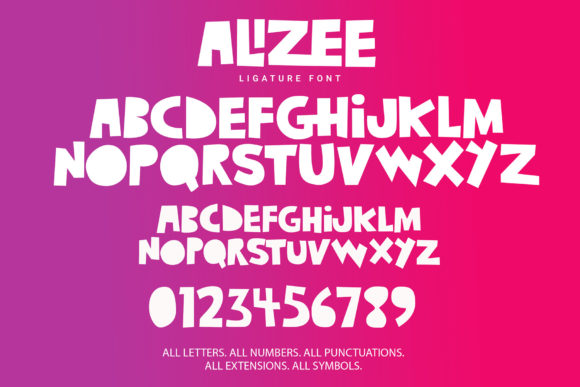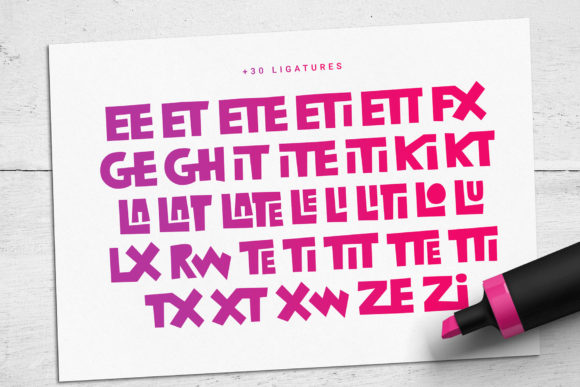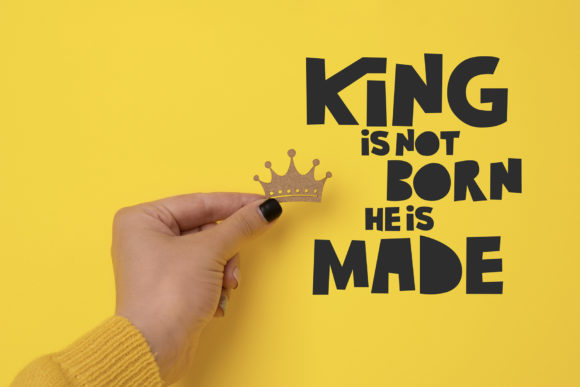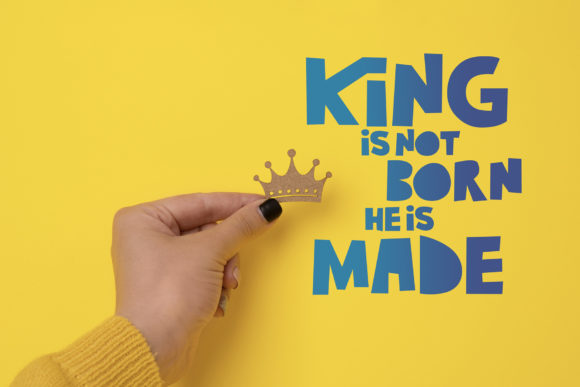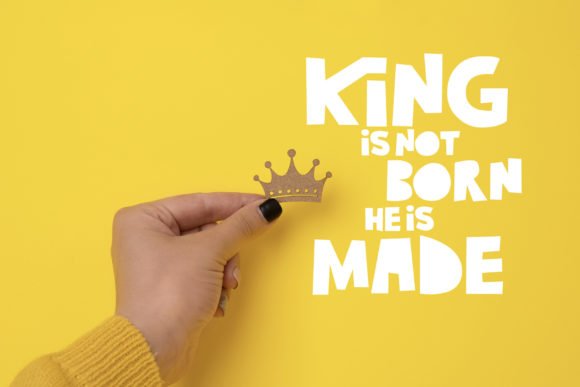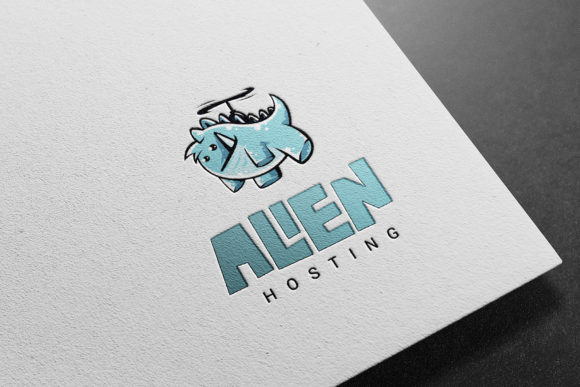
Introducing Alizee Font: The Ultimate Modern Display Font for Creative Designs
Are you on the hunt for a font that can add a touch of modernity and playfulness to your designs? Look no further than Alizee Font! This cool and modern display font family is perfect for creating cheerful logotypes, titles, and more. With its original and modern style, Alizee Font is sure to make your designs stand out from the crowd.
What Makes Alizee Font So Special?
Alizee Font is a game-changer for designers and crafters alike. Its unique and modern style makes it perfect for a wide range of design projects, from branding and advertising to packaging and more. Here are just a few reasons why Alizee Font is a must-have for any designer:
- Original and Modern Style: Alizee Font boasts an original and modern style that’s sure to turn heads. Its unique letterforms and swashes make it perfect for creating eye-catching designs that demand attention.
- PUA Encoded: Alizee Font is PUA (Private Use Area) encoded, which means you can access all of the glyphs and swashes with ease. This makes it easy to get creative with your designs and experiment with different looks and styles.
- Cheerful and Playful: Alizee Font is the perfect choice for designers who want to add a touch of playfulness and whimsy to their designs. Its cheerful and upbeat vibe makes it perfect for brands and businesses that want to appeal to a younger audience.
Uses for Alizee Font
Alizee Font is a versatile font that can be used for a wide range of design projects. Here are just a few ideas to get you started:
- Logotypes and Branding: Alizee Font is perfect for creating unique and memorable logotypes that reflect your brand’s personality and style.
- Advertising and Marketing: Use Alizee Font to create eye-catching ads and marketing materials that demand attention and drive results.
- Packaging and Product Design: Alizee Font is a great choice for packaging and product design, adding a touch of modernity and playfulness to any product.
- Signage and Displays: Use Alizee Font to create eye-catching signage and displays that showcase your brand’s personality and style.
Tips for Using Alizee Font
Here are a few tips for getting the most out of Alizee Font:
- Experiment with Different Sizes and Styles: Alizee Font looks great in a variety of sizes and styles, so don’t be afraid to experiment and find the look that works best for your design.
- Pair with Other Fonts: Alizee Font pairs well with a range of other fonts, so try combining it with different fonts to create a unique and interesting look.
- Use Swashes and Glyphs: Take advantage of Alizee Font’s PUA encoding and use the swashes and glyphs to add a touch of personality and whimsy to your designs.